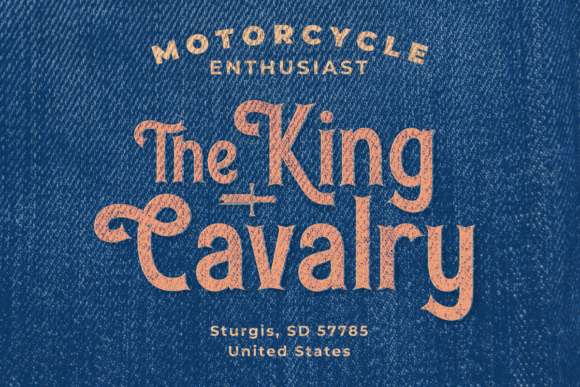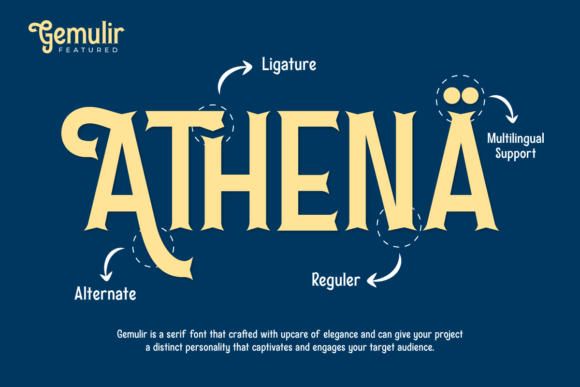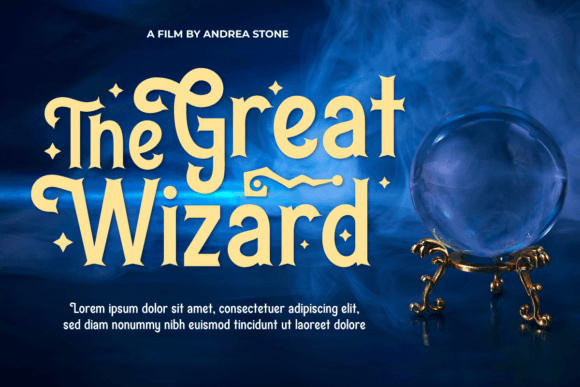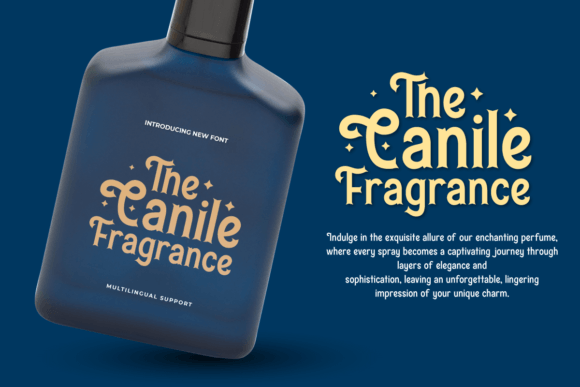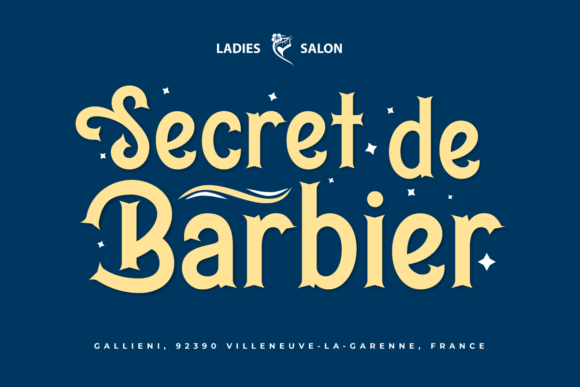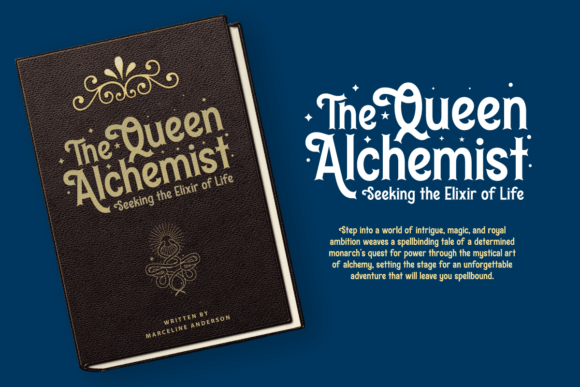
The Elegance of Gemulir Font: A Timeless Choice for Designers
I still remember the design project that made me fall in love with the Gemulir font. I was working on a luxury brand’s brochure, and my client requested a classic, sophisticated look that would convey their high-end products. I scoured font libraries, but nothing seemed to fit the bill – until I stumbled upon Gemulir. Its smooth lines, elegant character shapes, and timeless beauty instantly won me over. In this article, I’ll share my experience with Gemulir, its features, and how to make the most of this stunning font.
An Honest Review of Gemulir Font
What I Love About Gemulir ✨
- 💯 Timeless elegance: Gemulir brings a classic, sophisticated look to any project, making it perfect for luxury brands, high-end products, or formal documents.
- 🎨 Customization options: With PUA encoding, you can easily access a wide range of glyphs and ligatures to add a personal touch to your designs.
- ✅ Consistency and professionalism: Gemulir ensures a consistent and professional appearance across various projects, from formal documents to branding designs.
- 📚 Versatility: This font is suitable for a wide range of applications, including promotional materials, web designs, and more.
While Gemulir is an exceptional font, there are a few minor limitations to consider:
- 🤔 Limited availability of certain characters: Some users have reported that certain characters or glyphs may not be readily available, requiring additional setup or workarounds.
The Story Behind Gemulir Font
Gemulir’s design inspiration comes from the rich history of classic serif fonts, with a focus on elegance and sophistication. While the font’s exact origin story is unclear, its creators aimed to craft a timeless, versatile font that would meet the needs of designers seeking a luxurious look. With its PUA encoding and extensive glyph library, Gemulir has become a go-to choice for designers worldwide.
| What is PUA encoding, and how does it benefit Gemulir users? | PUA (Private Use Area) encoding allows font creators to include additional glyphs and characters, making it easier for users to access a wide range of special characters and ligatures. In Gemulir’s case, PUA encoding enables users to tap into its extensive glyph library. |
| Is Gemulir suitable for digital applications? | Absolutely! Gemulir’s clear, elegant design makes it an excellent choice for digital applications, including web design, social media graphics, and more. |